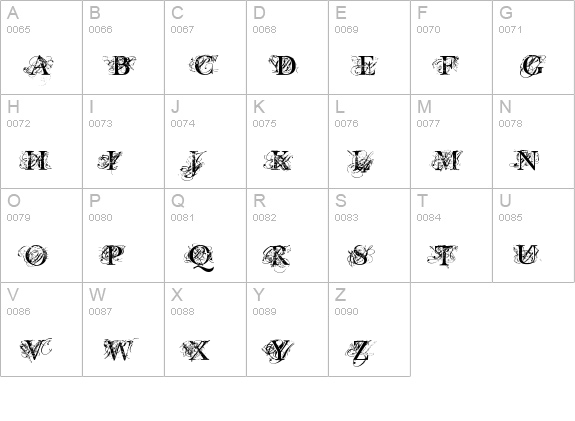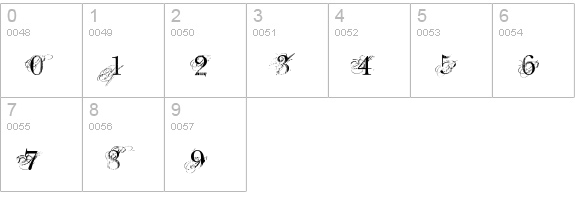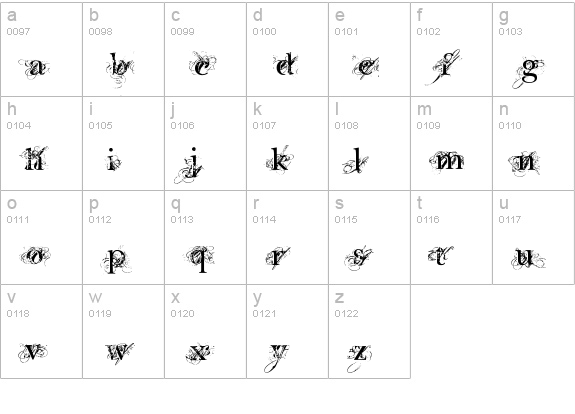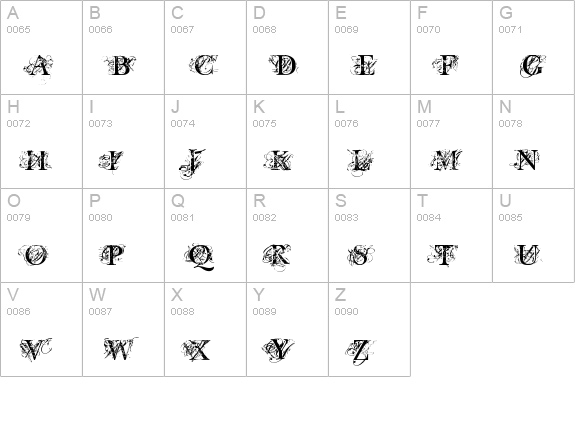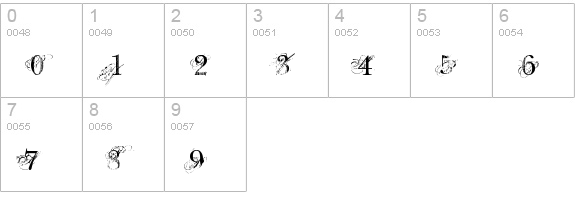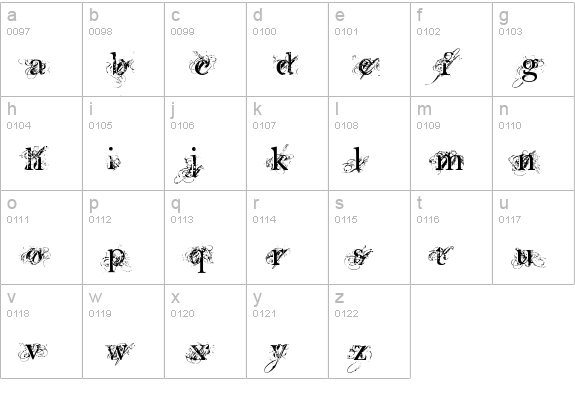
Chic decay Font Details
Chic Decay font is a stunning display typeface that effortlessly combines elegance with a touch of edginess. Its unique style exudes a sense of sophisticated decay, making it the perfect choice for projects that require a blend of modernity and vintage charm. The intricate details and intricate letterforms of Chic Decay font create a visually striking look that is sure to captivate any audience. Best of all, Chic Decay font is available for free download at FontsMarket.com, allowing designers and creatives to easily incorporate this one-of-a-kind typeface into their work. Whether you're working on branding, packaging, posters, or any other design project, Chic Decay font is a versatile option that will elevate your creations to the next level. Don't miss out on the opportunity to add this unique font to your collection and make a bold statement with your designs.